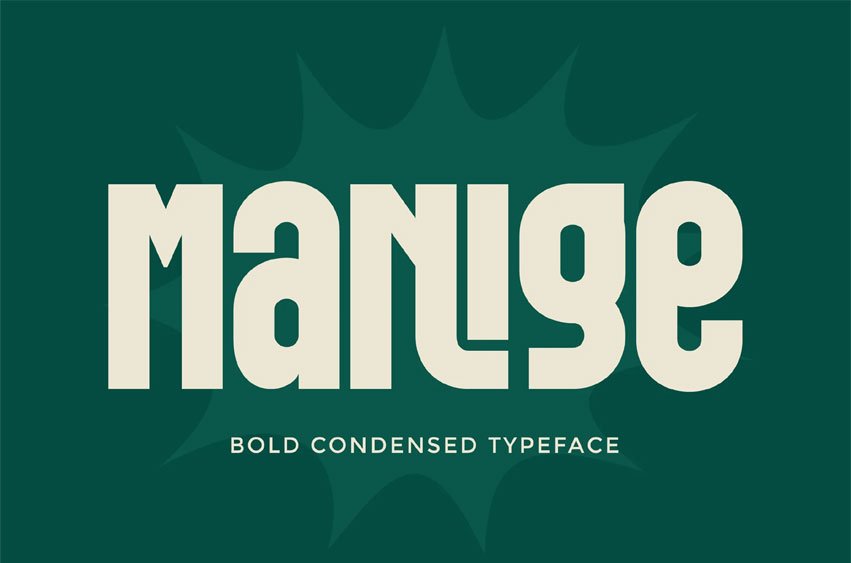
Manige Font is a powerful and modern condensed typeface designed to deliver maximum impact with minimal space. Built with strong vertical proportions and confident letterforms, this font is perfect for designers who want to create bold statements, striking headlines, and high-visibility typography.
Crafted to perform exceptionally well in both digital and print environments, Bold Condensed Manige offers excellent readability while maintaining a bold, contemporary character. Its clean structure and condensed width make it ideal for layouts that require efficiency without sacrificing visual strength.
Bold Condensed Manige is more than just a font—it’s a visual voice for confident brands and bold creative ideas.